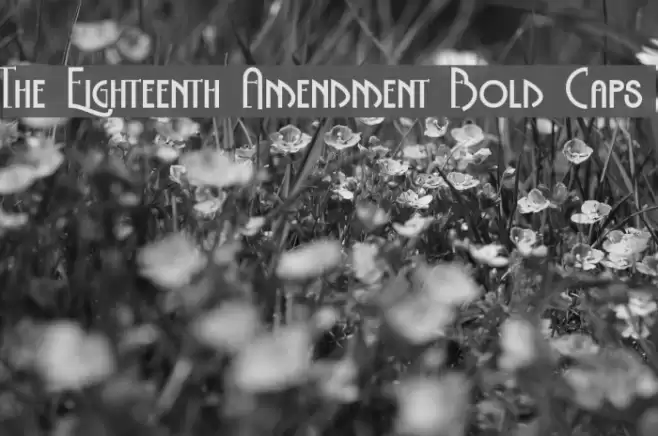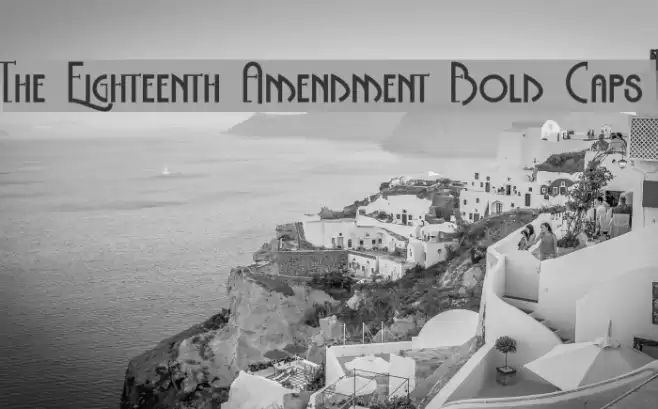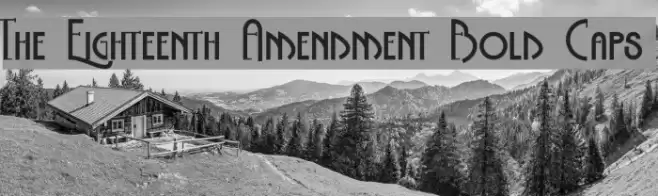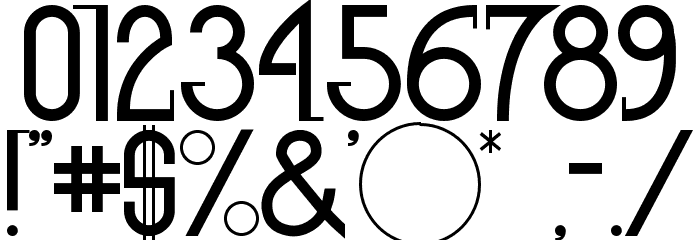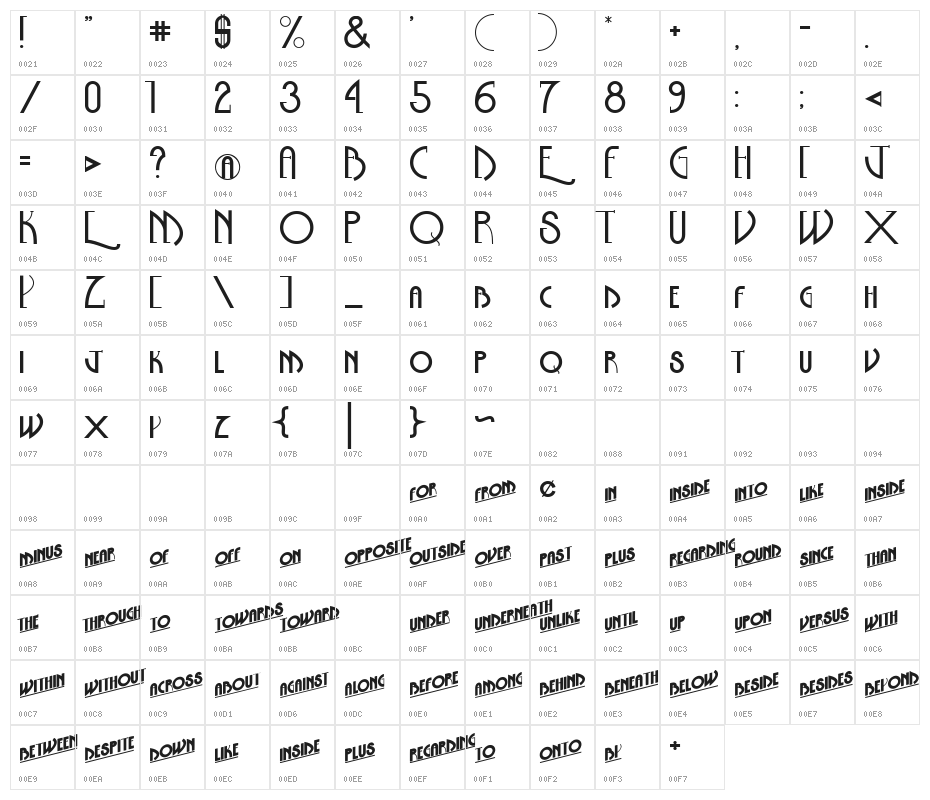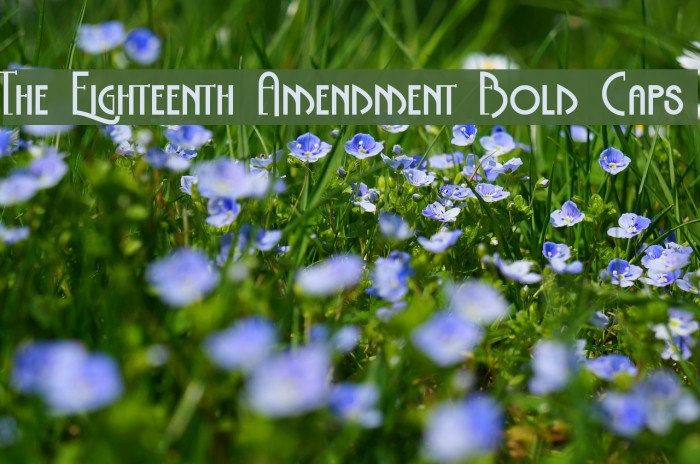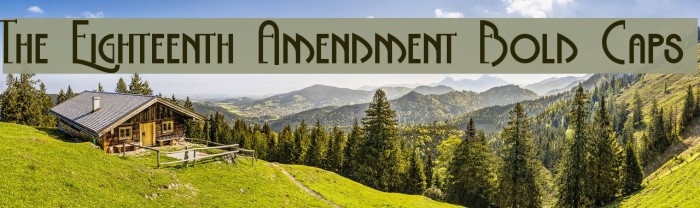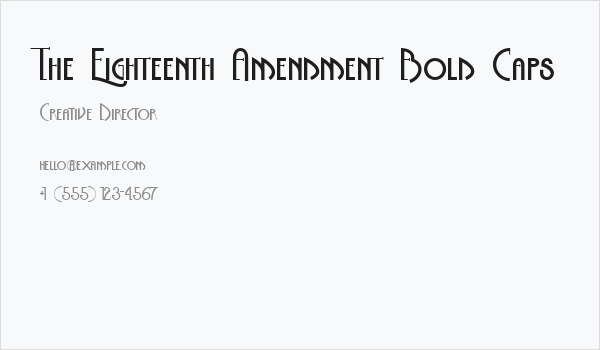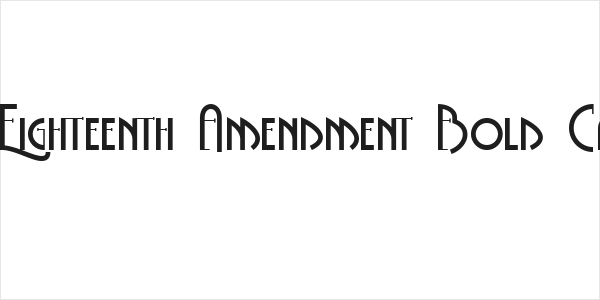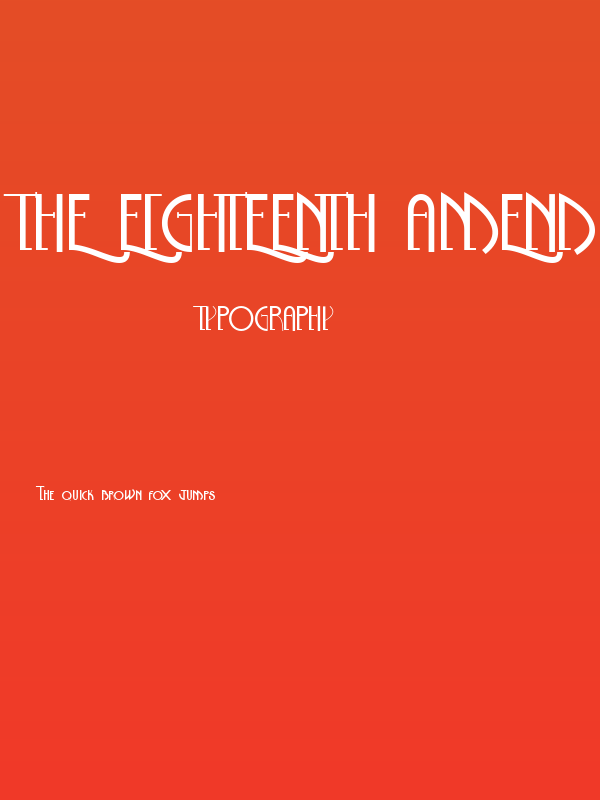
The Eighteenth Amendment Bold Caps Font
The Eighteenth Amendment Bold Caps Description
This font features a bold and striking design with a distinct Art Deco influence. The uppercase letters are characterized by geometric shapes and sharp angles, creating a sense of elegance and sophistication. The lowercase letters maintain a consistent style, complementing the uppercase with their clean lines and balanced proportions. Numbers are designed with the same boldness, ensuring readability and visual impact. Special characters are thoughtfully integrated, maintaining the overall aesthetic of the font. The design is both decorative and functional, making it suitable for a variety of creative applications.
A bold, Art Deco-inspired font with geometric shapes and sharp angles from Uncategorized fonts.
- Overall Style: Vintage